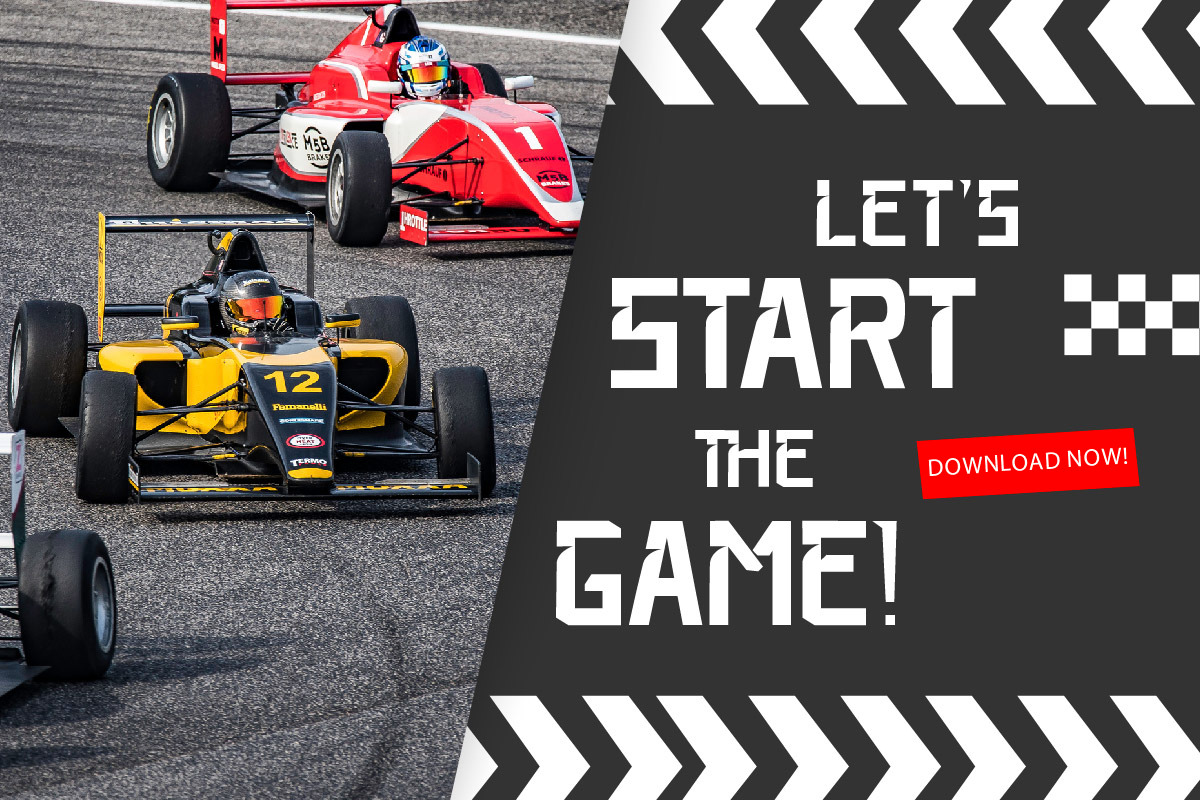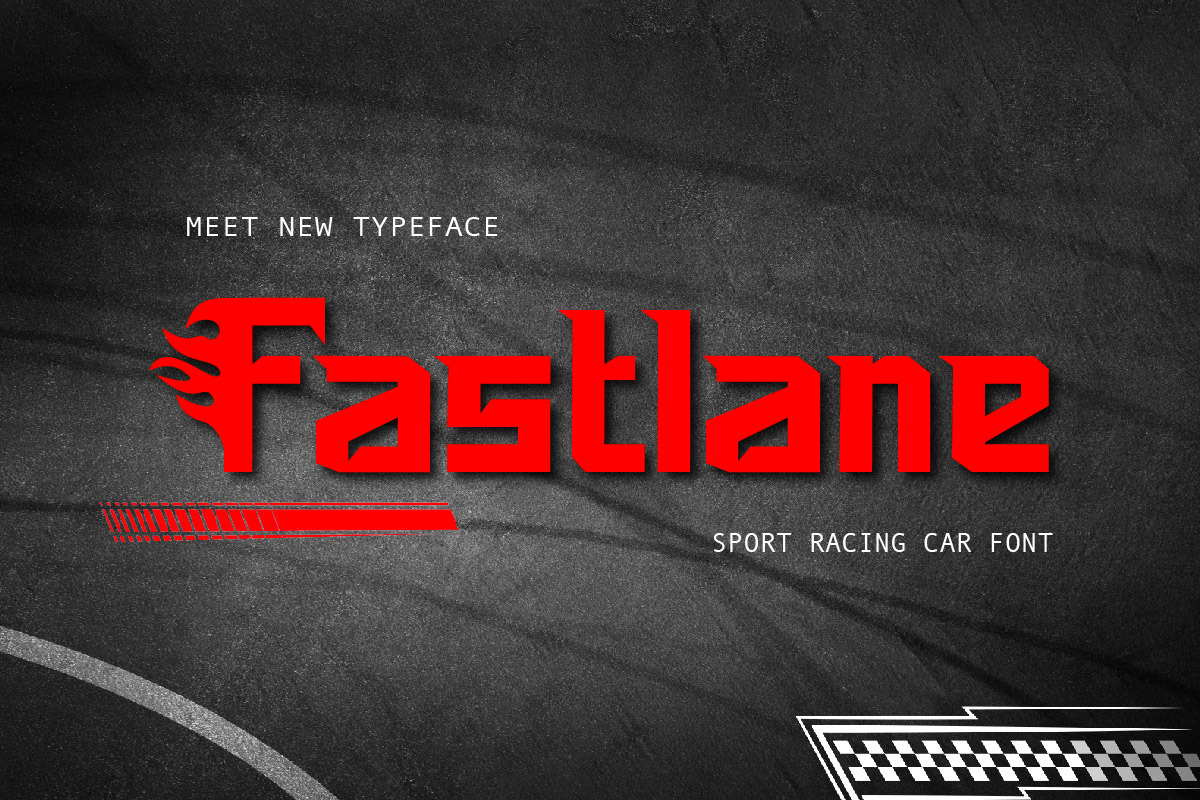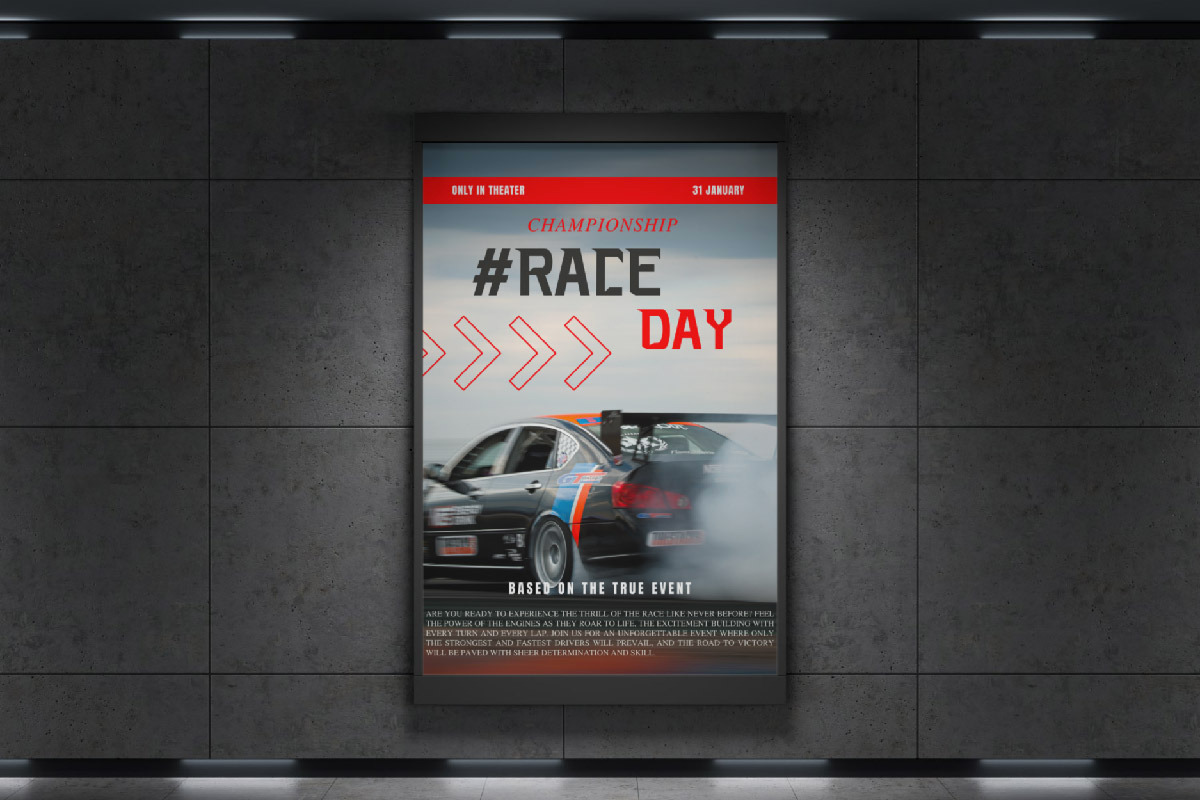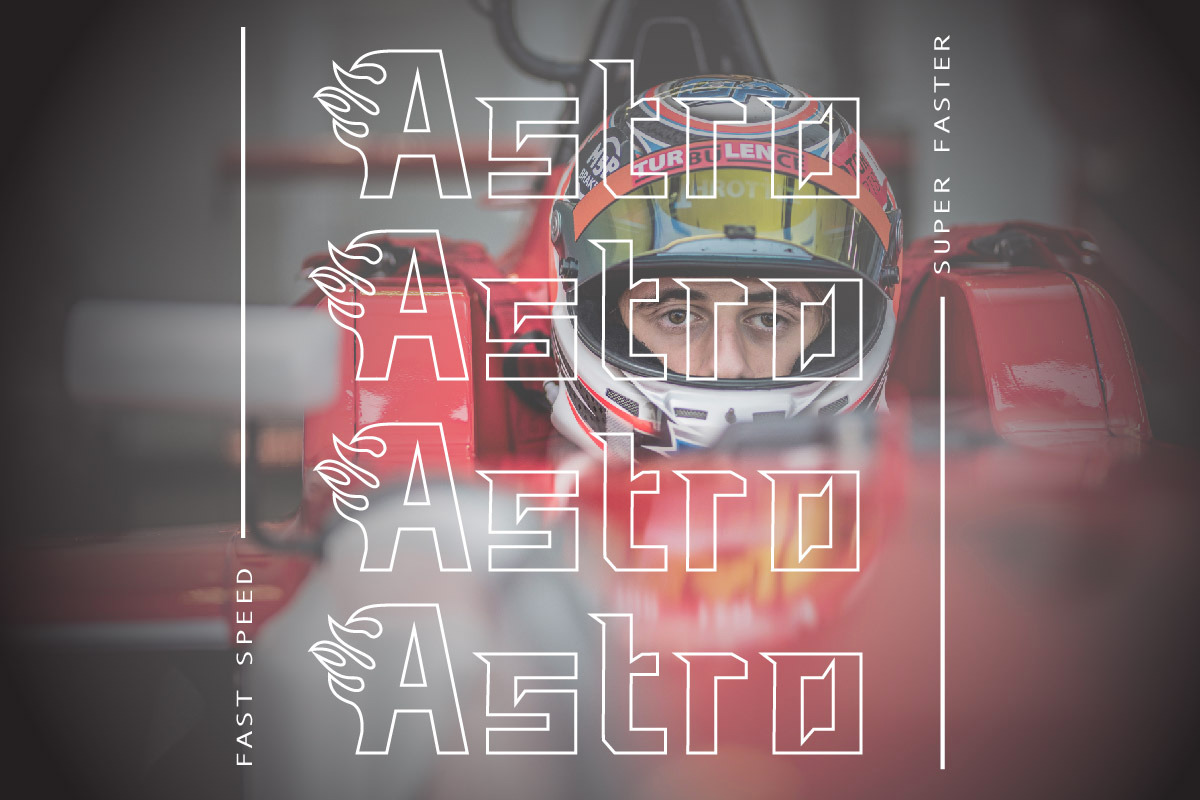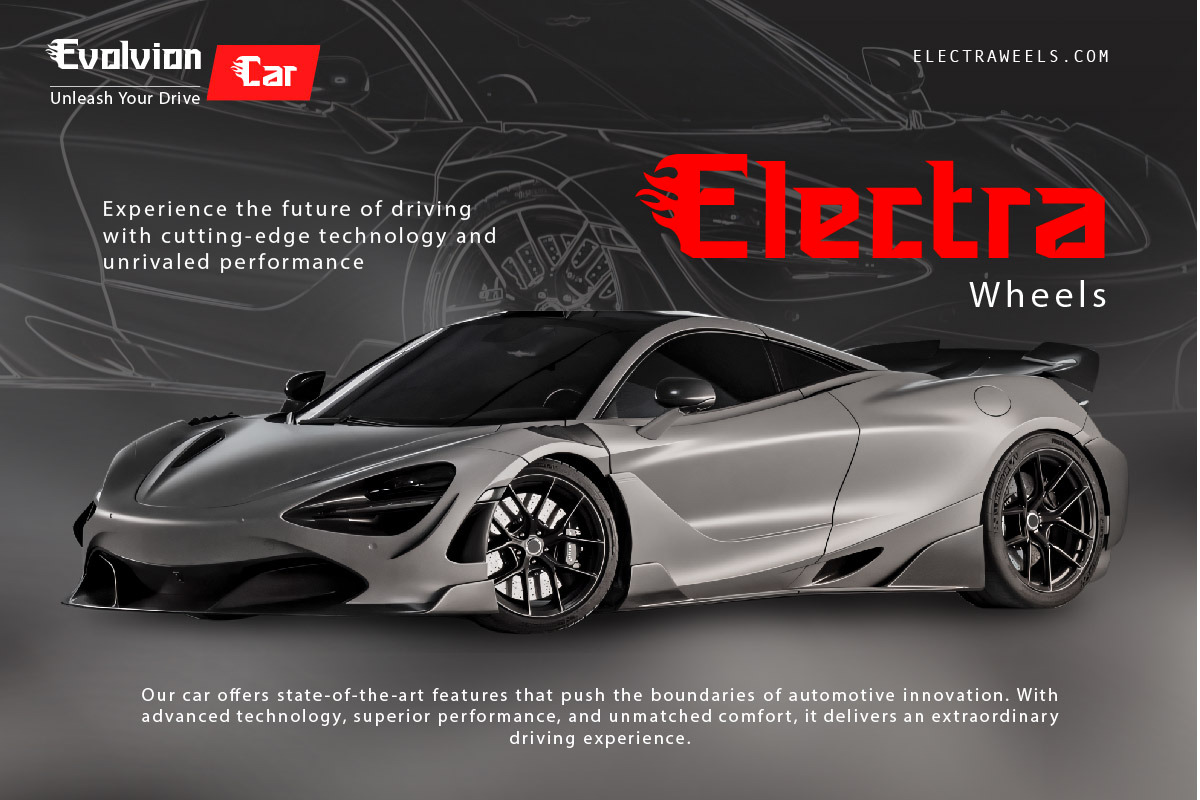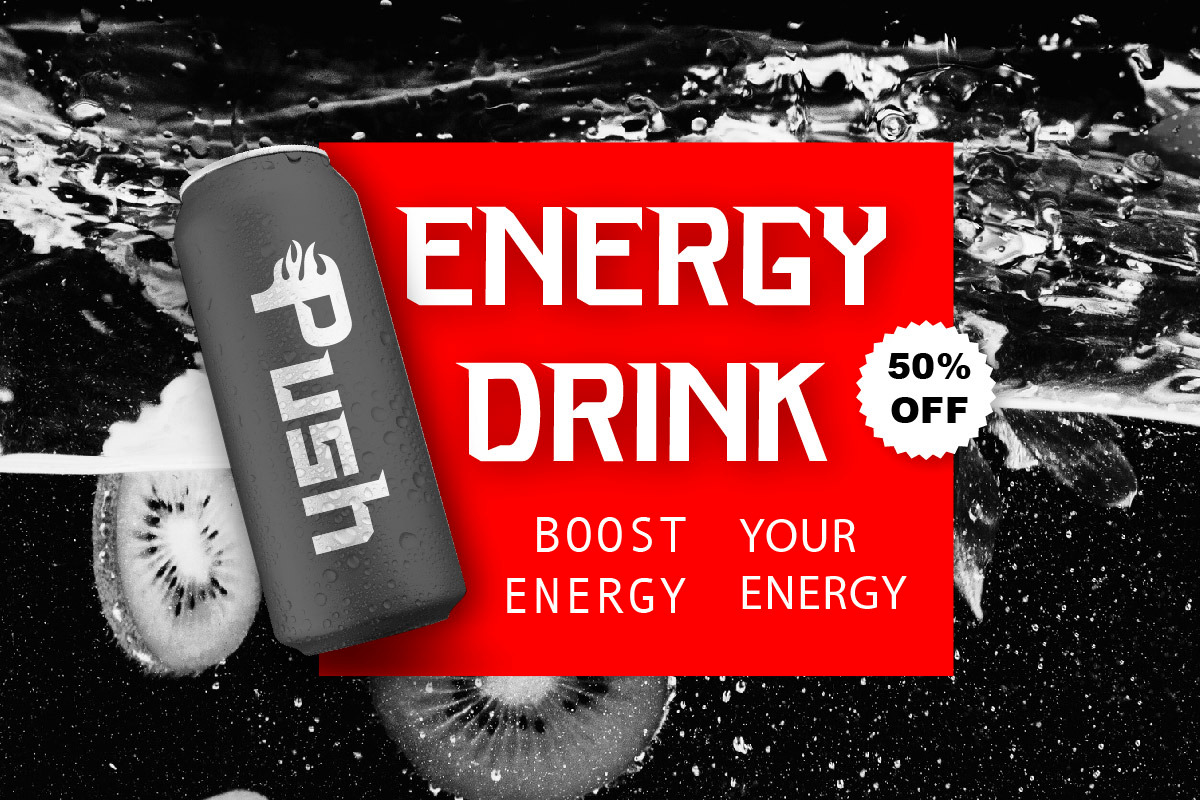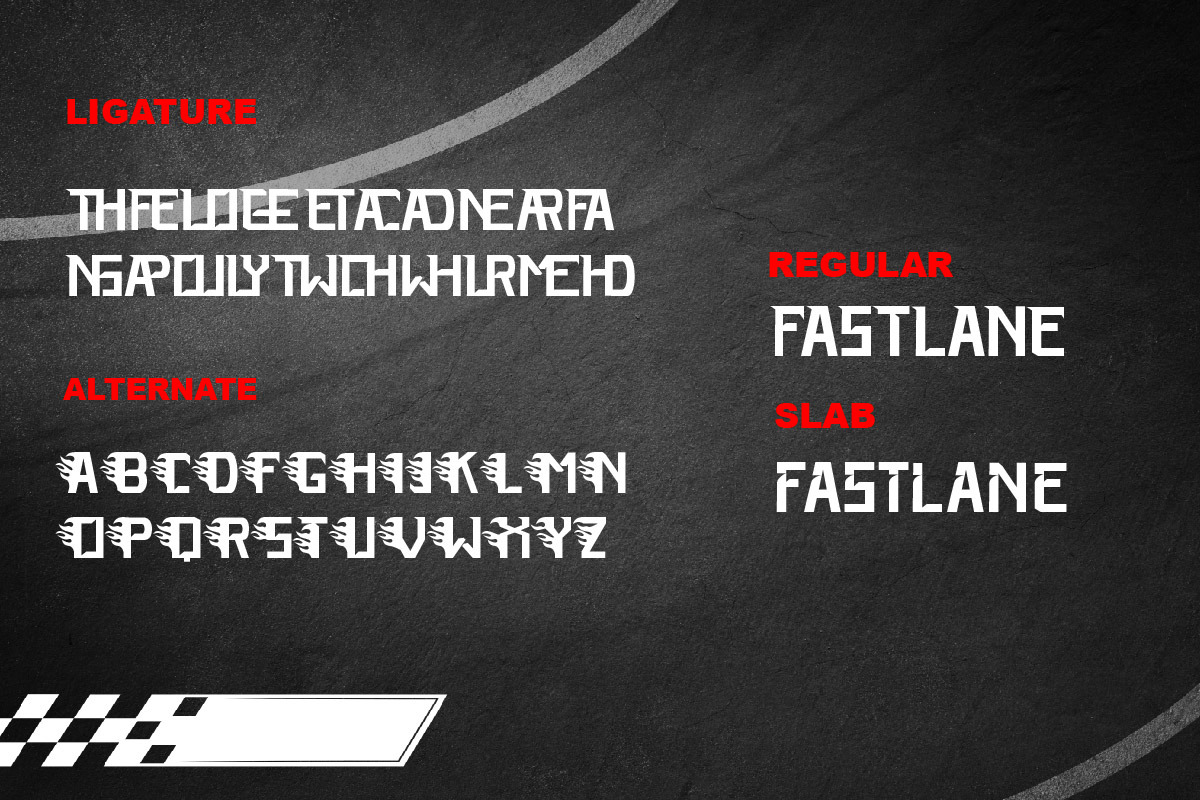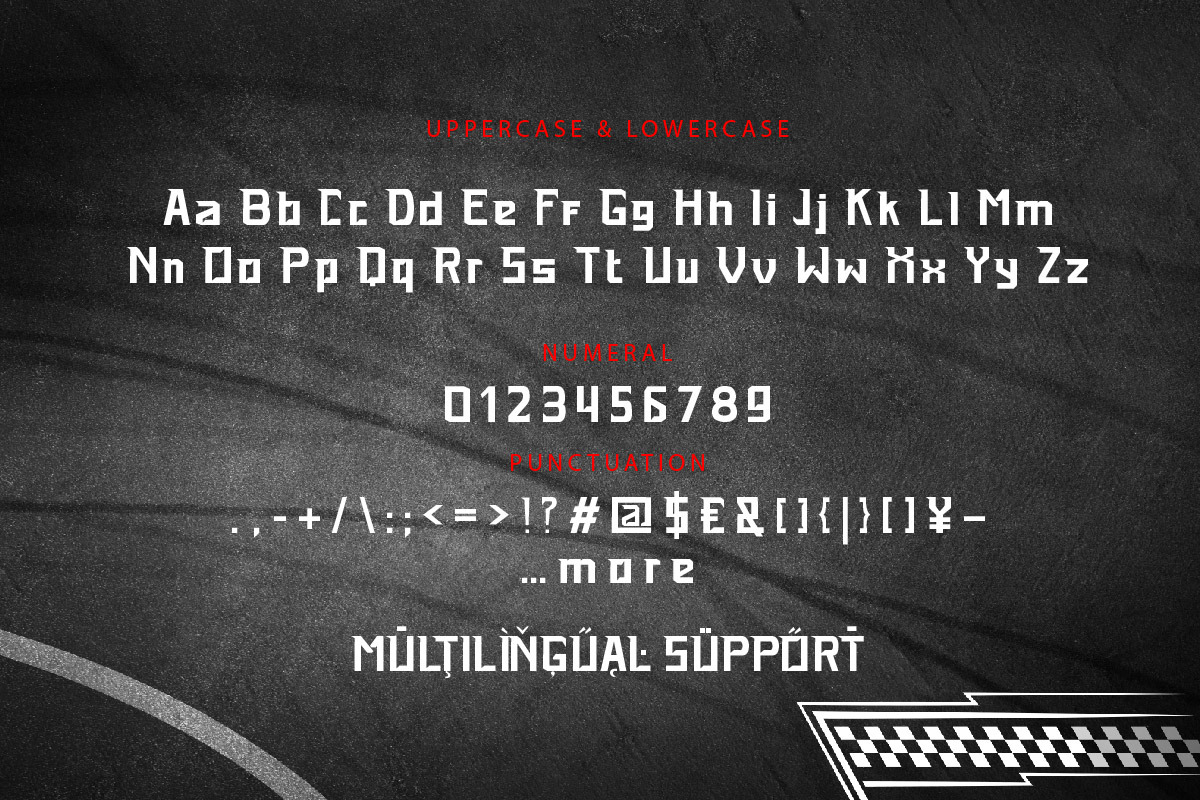
Fastlane - Bold Racing Font
Fuel your designs with speed and energy using Fastlane, a bold sport font crafted for racing-themed projects. Its sharp edges and modern style make it perfect for race posters, team branding, merchandise, and gaming visuals. Designed to evoke the thrill of the track, Fastlane ensures your designs stand out with high-octane appeal. Ideal for graphic designers and freelancers, this font is ready to accelerate your creative vision.